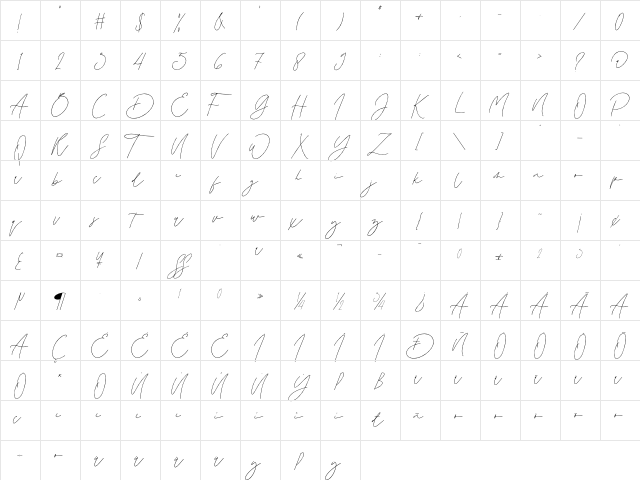
Emeria Regular
| Designer | Muhamad Fikry Nuralif |
Design Context for Emeria Typeface
Emeria is a composed and adaptable typeface that performs quietly and consistently across a wide range of design contexts.